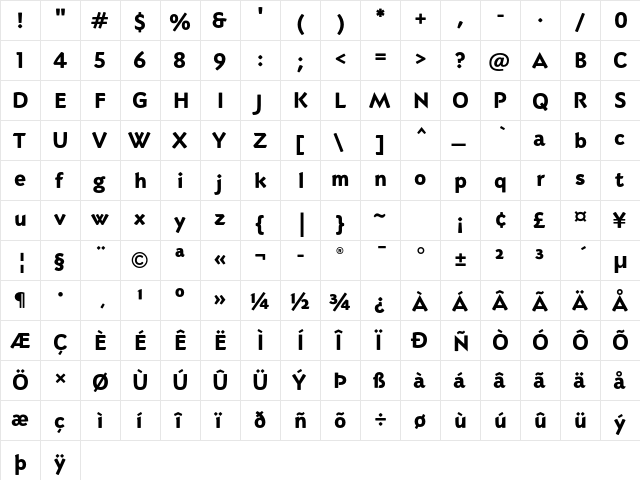
Adderville ITC Std Heavy
| Designer | George Ryan |
Design Context for Adderville ITC Std Typeface
Adderville ITC Std offers clean, dependable letterforms without strong stylistic allegiance, making it a practical choice for designers who need flexibility.